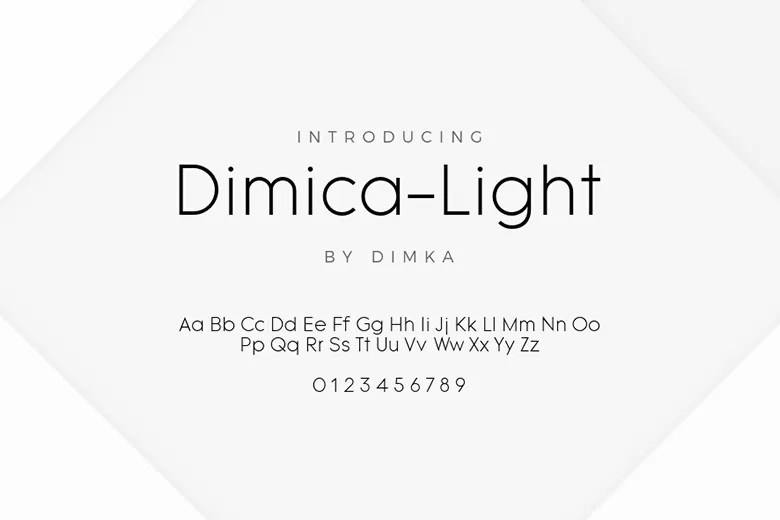
Dimica Font
Dimica is a modern sans-serif font designed with simplicity and geometric precision in mind. Its lightweight structure and balanced proportions create a contemporary aesthetic that is both clean and highly readable. With sharp edges and open shapes, this font exudes a minimalist elegance, making it ideal for branding, editorial layouts, websites, and digital applications.
Whether you’re crafting sophisticated headlines or sleek body text, Dimica’s versatile design ensures a refined and professional look. Its unassuming yet stylish presence makes it perfect for modern design solutions, ensuring clarity without sacrificing personality.